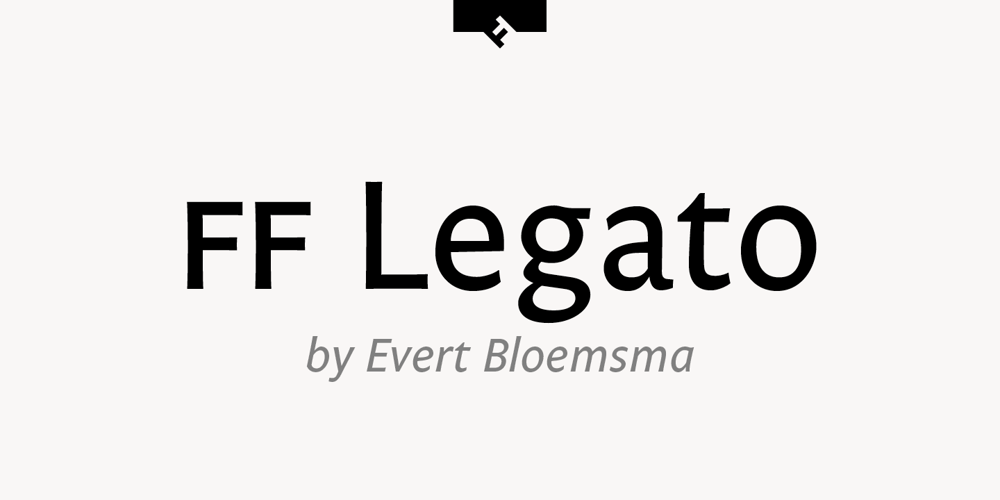
FF Legato Font Family was designed by Evert Bloemsma and published by FontFont. FF Legato contains 8 styles and family package options. Dutch type designer Evert Bloemsma created this sans FontFont in 2004. The family has 8 weights, ranging from Light to Bold (including italics) and is ideally suited for book text, editorial and publishing, logo, branding and creative industries as well as small text. FF Legato provides advanced typographical support with features such as ligatures, small capitals, alternate characters, case-sensitive forms, fractions, and super- and subscript characters. It comes with a complete range of figure set options – oldstyle and lining figures, each in tabular and proportional widths. In 2011, FF Legato received the Letter.2 award.